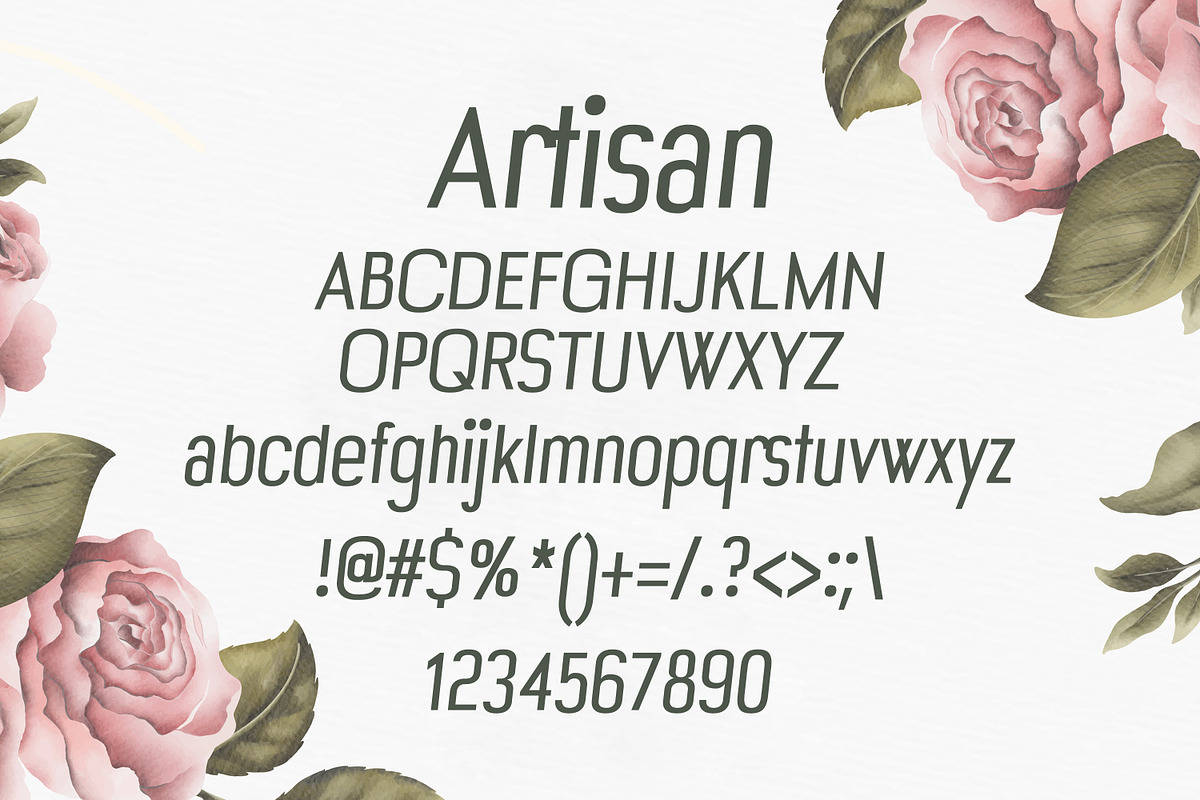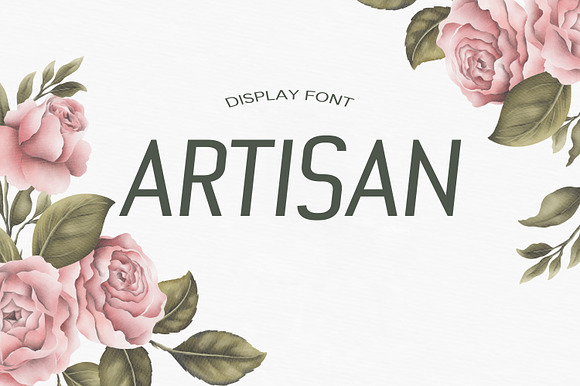
Artisan Summer Font
Unique handmade calligraphic Summer Font is a modern display font with alternative flourish lowercase and uppercase characters. It helps you realize your dreams and creations.
- Unique handmade calligraphic Summer Font is a modern display font with alternative flourish lowercase and uppercase characters.
Why Artisan Summer Font is worth a look
Artisan Summer Font by DmDesignsStoreArt fits naturally into Branding, posters, packaging, typography.